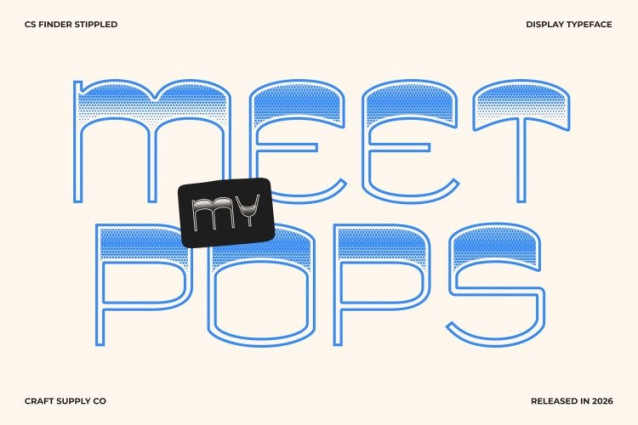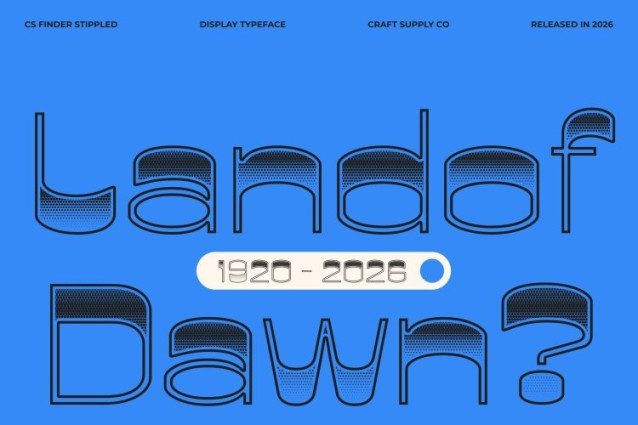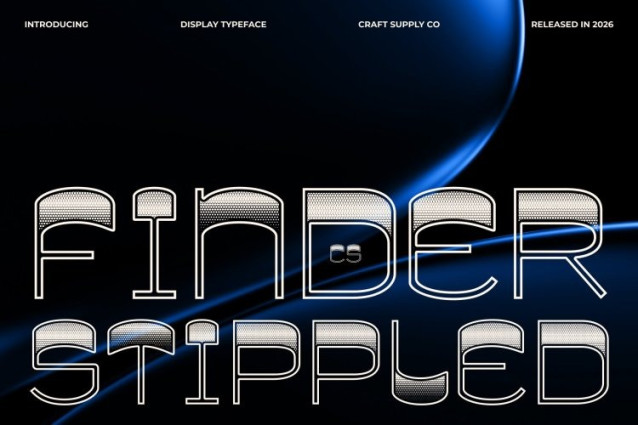
CS Finder Stippled Font
CS Finder Stippled Font – This is a classic display font that stands out with its distinctive reverse contrast design. The letterforms feature thick horizontal strokes paired with thinner vertical lines, creating a bold and dynamic visual rhythm. Enhanced with a stippled texture, the font gains a subtle dotted surface that adds depth and a handcrafted feel, enriching the striking contrast with a tactile visual character.
Bold Typography with Dynamic Presence
The reverse contrast structure gives a powerful and attention-grabbing appearance. Its strong shapes and expressive proportions create a lively typographic style that feels energetic and visually engaging. The stippled detailing further enhances the design by introducing texture and dimension without diminishing the clarity of the bold forms.
Retro Spirit Inspired by the 90s
Drawing inspiration from the bold display typography of the 1990s, captures the nostalgic spirit of retro design. Its playful yet confident letterforms reflect the vibrant creative culture of the era, making it perfect for projects that want to channel a sense of vintage fun and expressive personality.
Perfect for Bold and Playful Designs
This font works beautifully in posters, event branding, packaging, editorial headlines, and creative advertising. Its combination of reverse contrast structure, retro inspiration, and textured stippled finish makes it an excellent choice for designs that aim to stand out with boldness, creativity, and nostalgic charm.